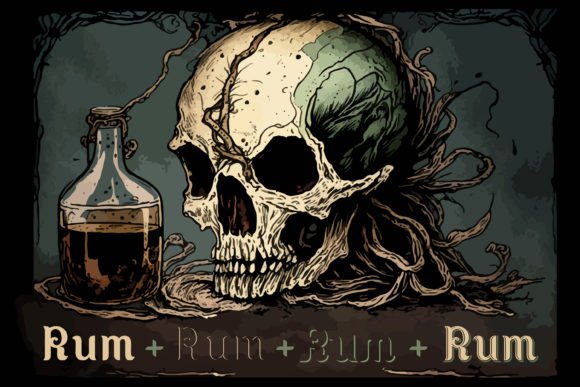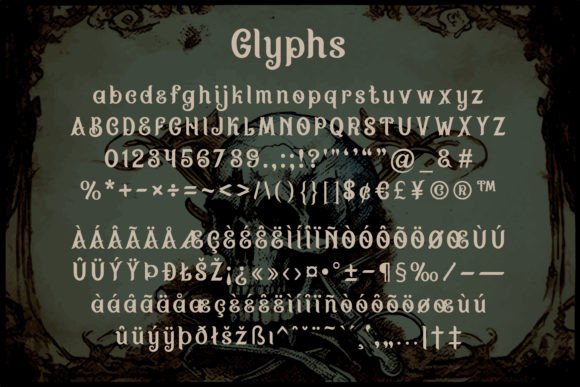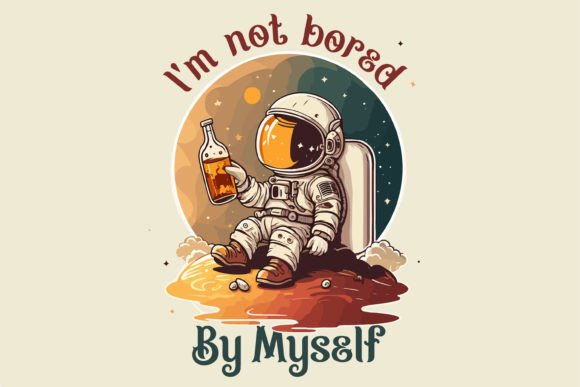
Introduction to Dark Rum Font
Introducing β€œDark Rum”, a vintage horror display font that will transport you to the eerie world of pirates and supernatural creatures.
This font boasts a distressed texture with a rum-soaked twist, making it perfect for spooky designs that require a touch of old-world charm Get ready to set sail into the unknown with β€œDark Rum”.
Key Features of Dark Rum Font
Why Choose Dark Rum Font?
Dark Rum Font offers exceptional quality and versatility, making it a valuable addition to your design toolkit. Whether you’re creating for personal projects or commercial use, Dark Rum Font delivers professional results.